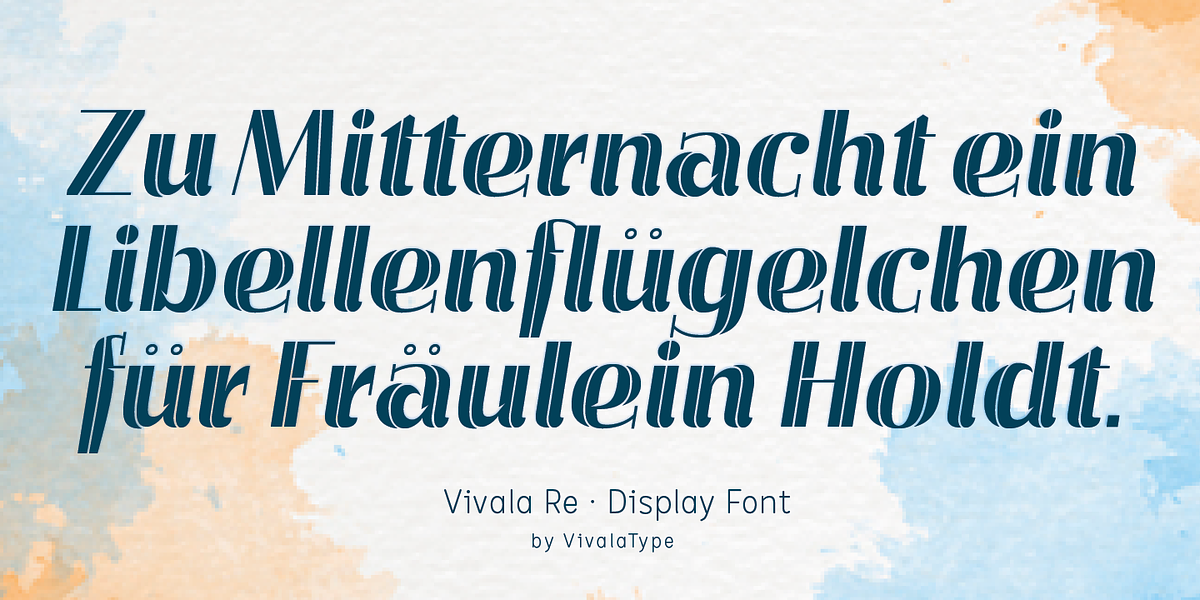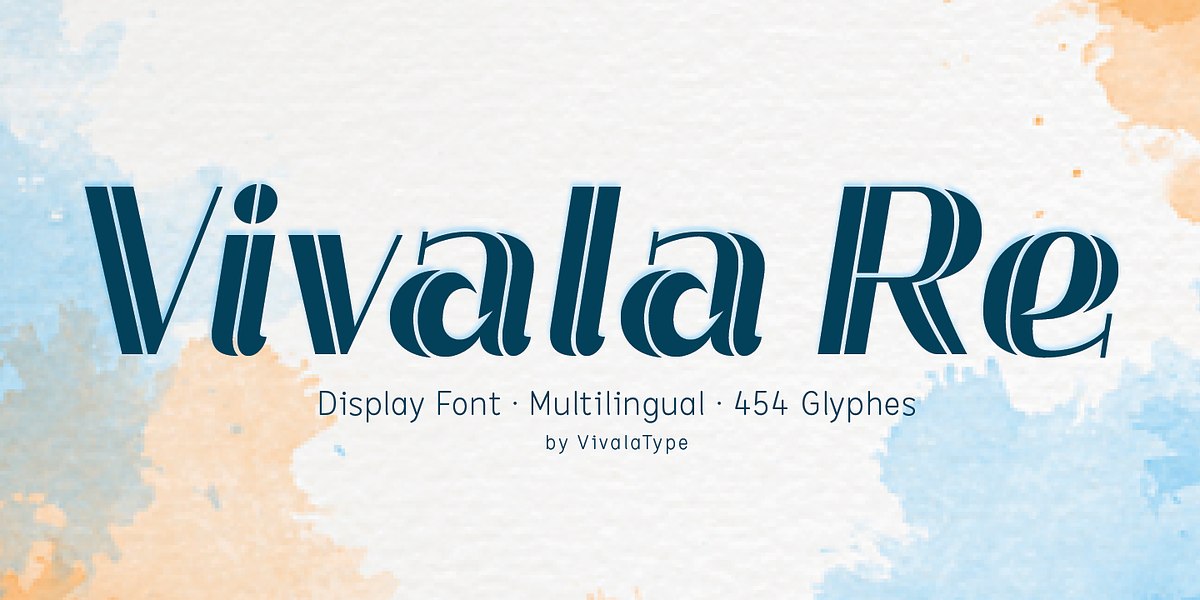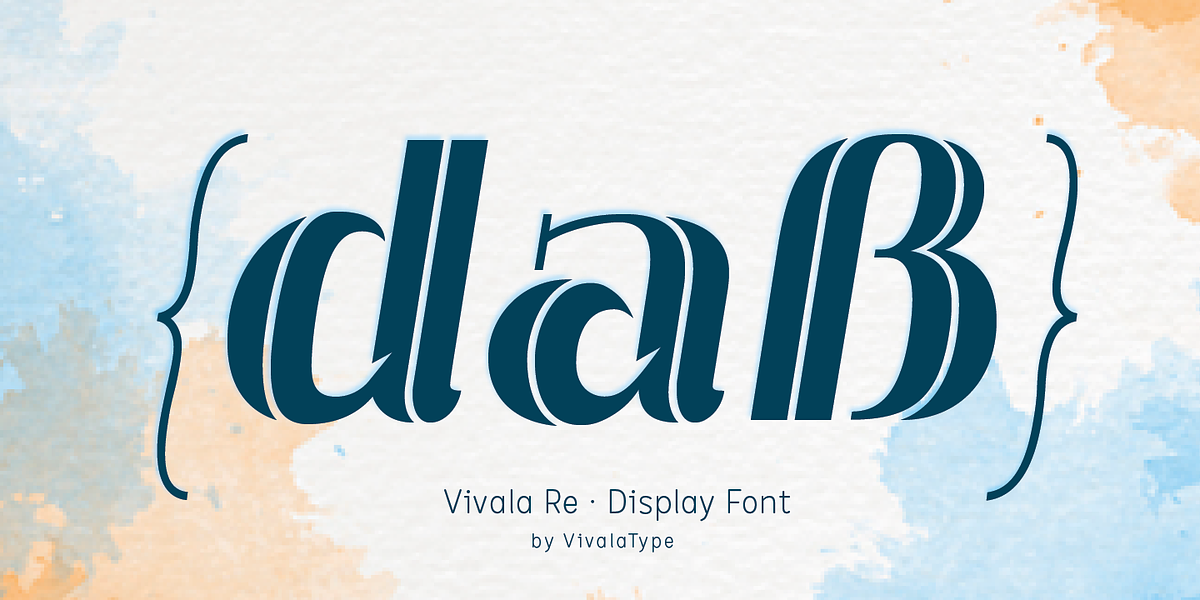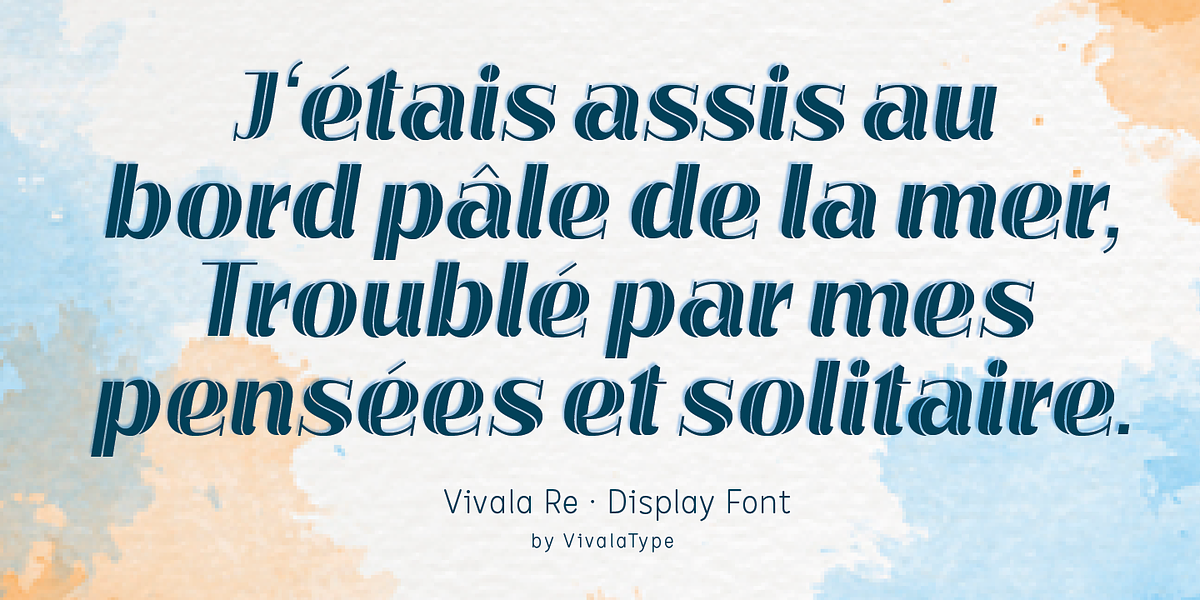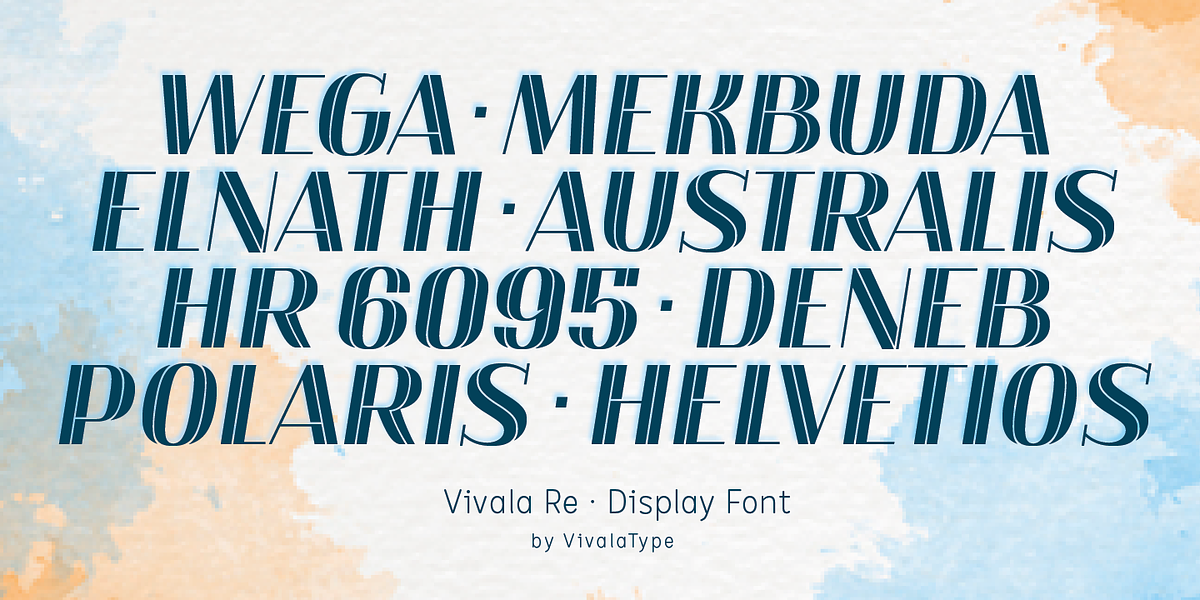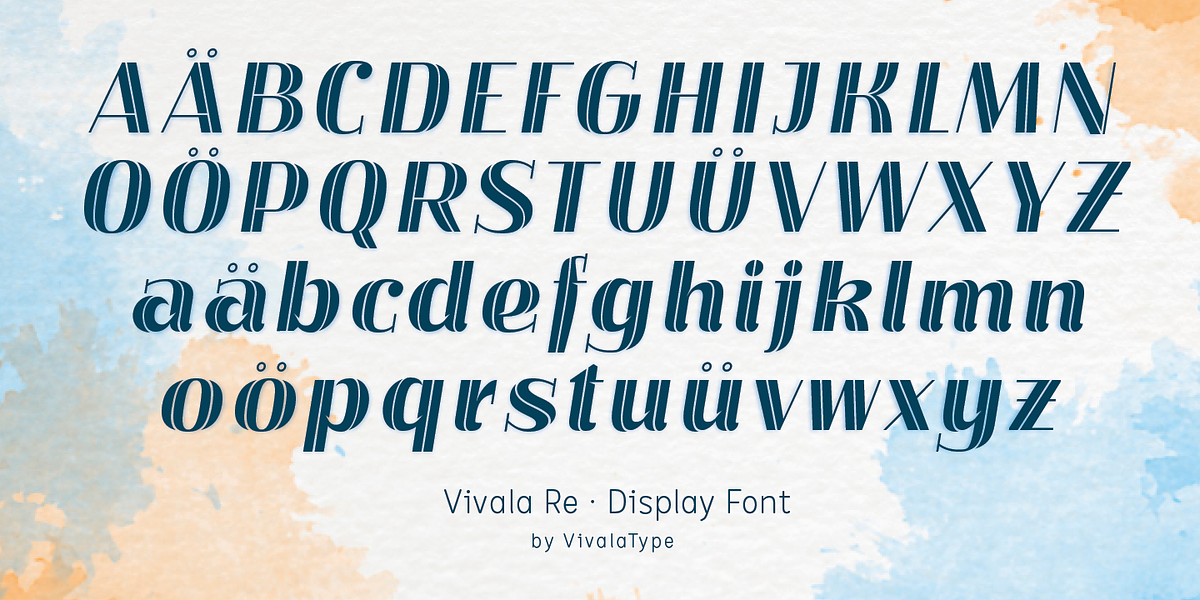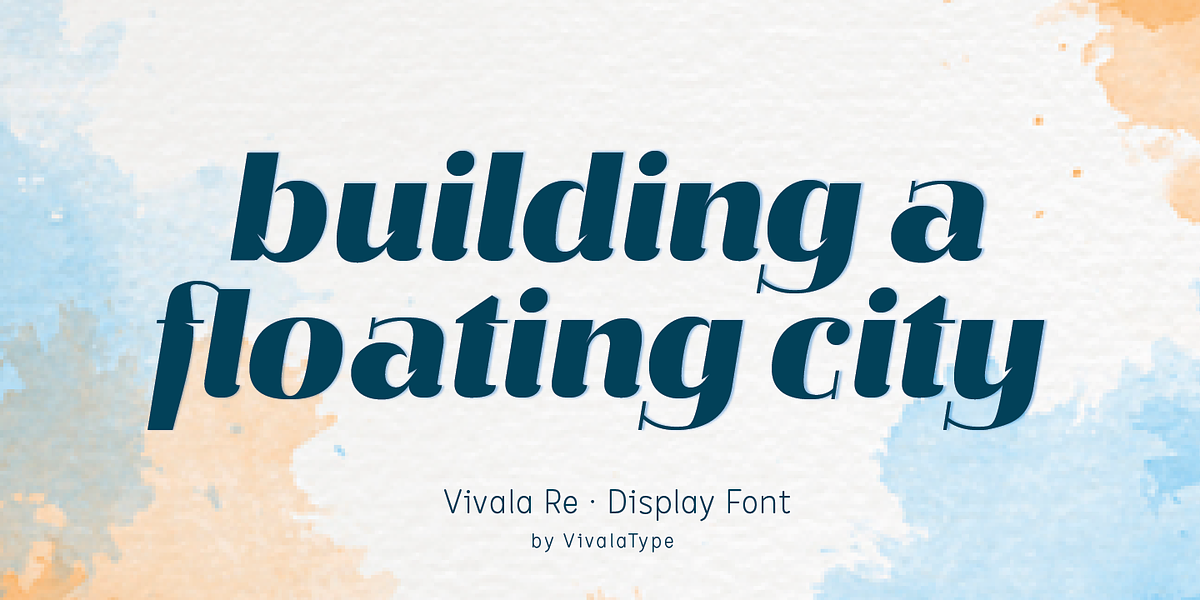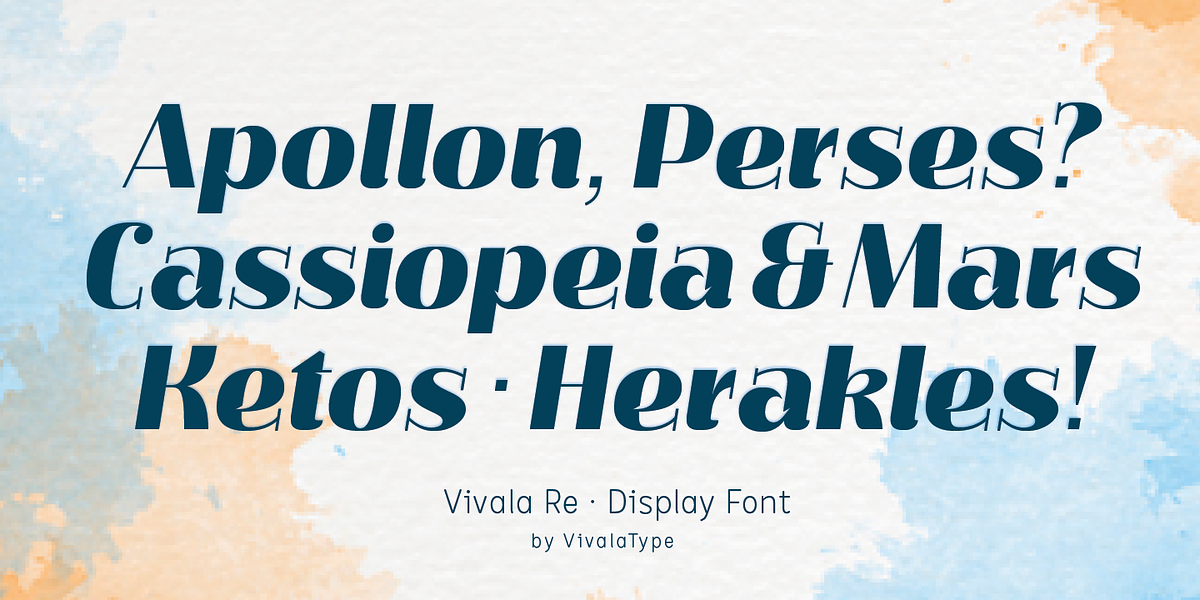
Vivala Re
Vivala Re is a geometric display font characterized by its striking contrast between thin, curved lines and bold, straight stems. This unique inline style adds visual interest and dynamism to the typeface. It is suitable for a variety of applications, including headlines in posters, book covers, magazines, brochures, and web design.